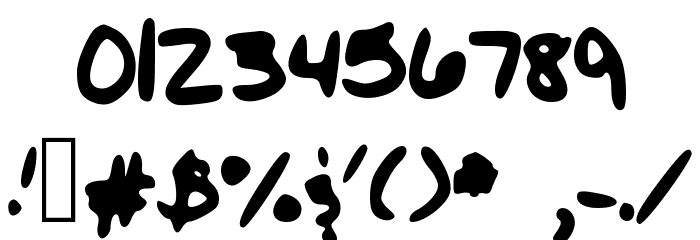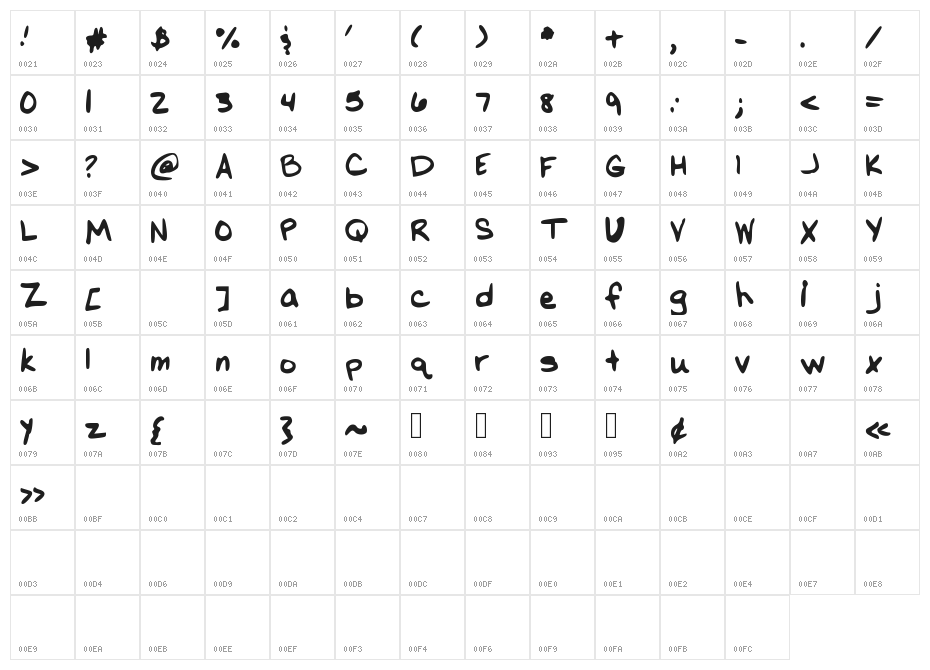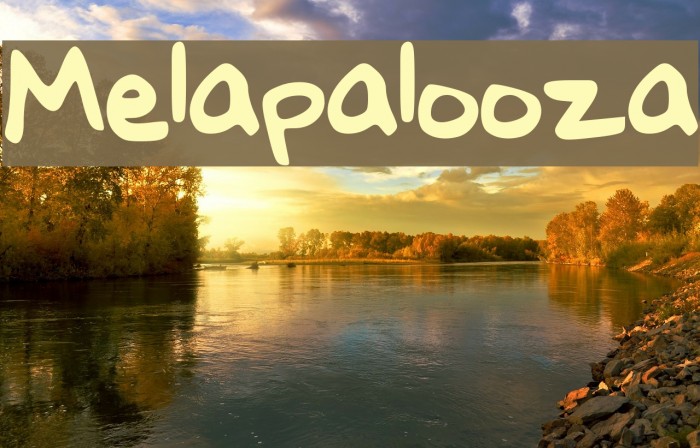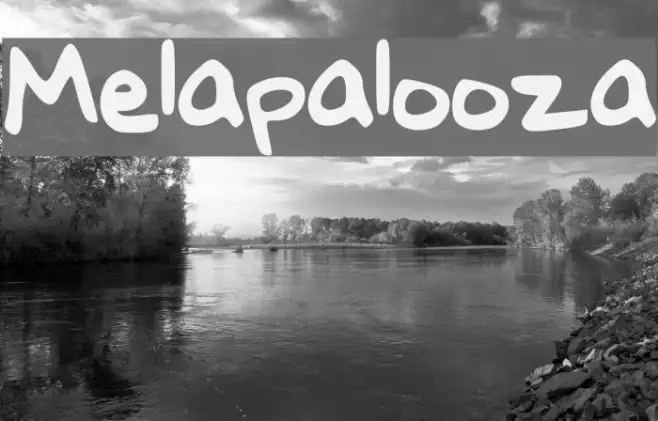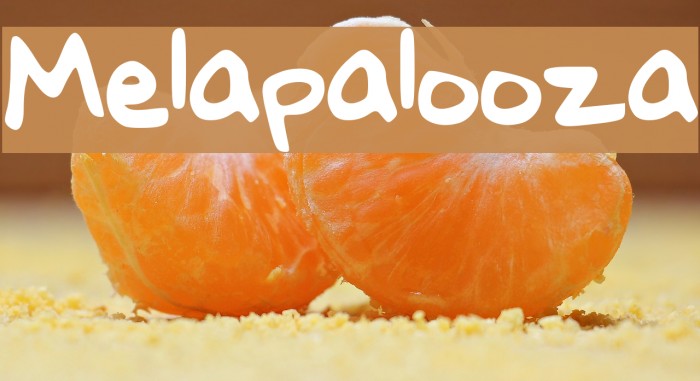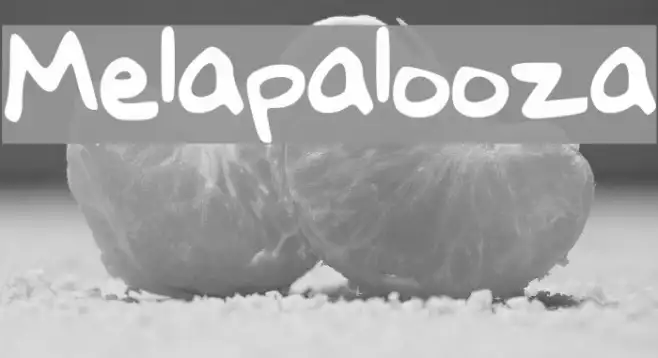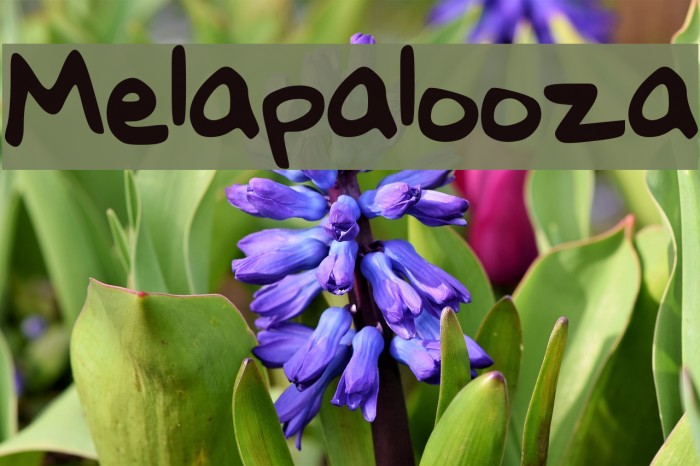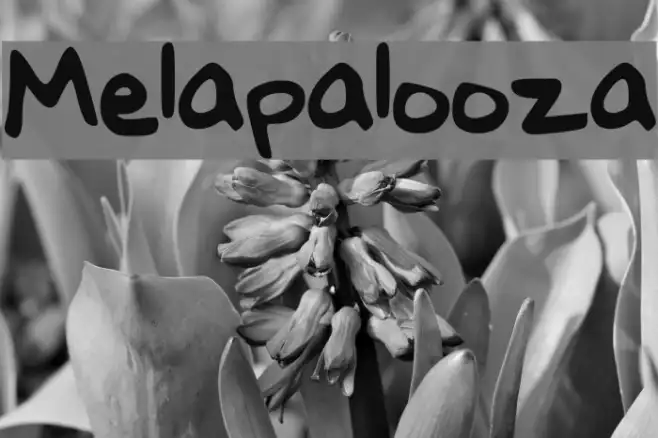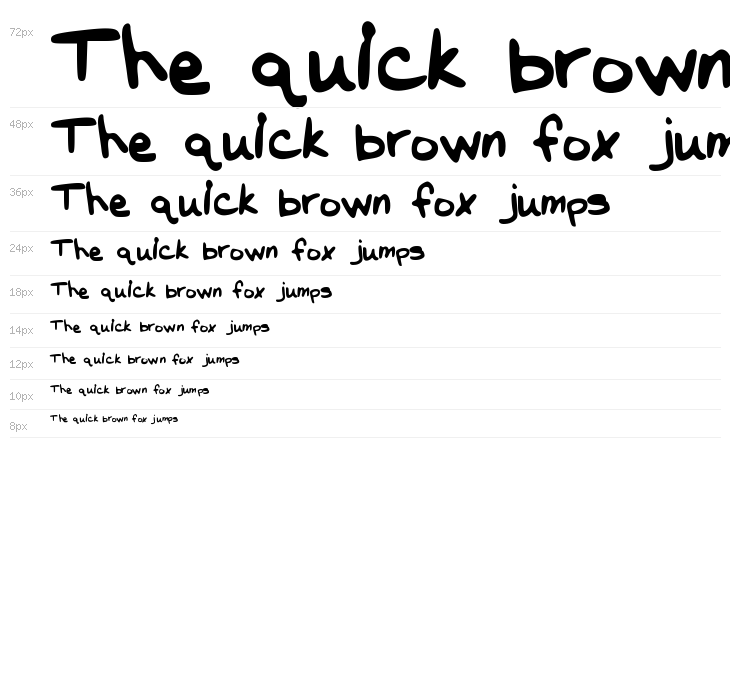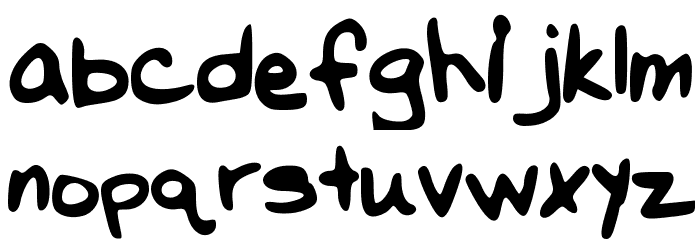
Melapalooza Font
Melapalooza Description
This playful and bold font features a hand-drawn aesthetic with a casual, informal style. The characters are rounded and slightly irregular, giving them a whimsical and approachable feel. The uppercase and lowercase letters maintain a consistent thickness, while the numbers and special characters follow the same playful design. The font's unique personality makes it stand out, with each character having its own distinct flair. This font is perfect for projects that require a fun and lively touch, such as children's books, party invitations, or creative branding.
| Use Case | Headlines, Logos, Creative projects |
| Proposed Projects | Ideal for children's books, party invitations, creative branding, and playful designs. |